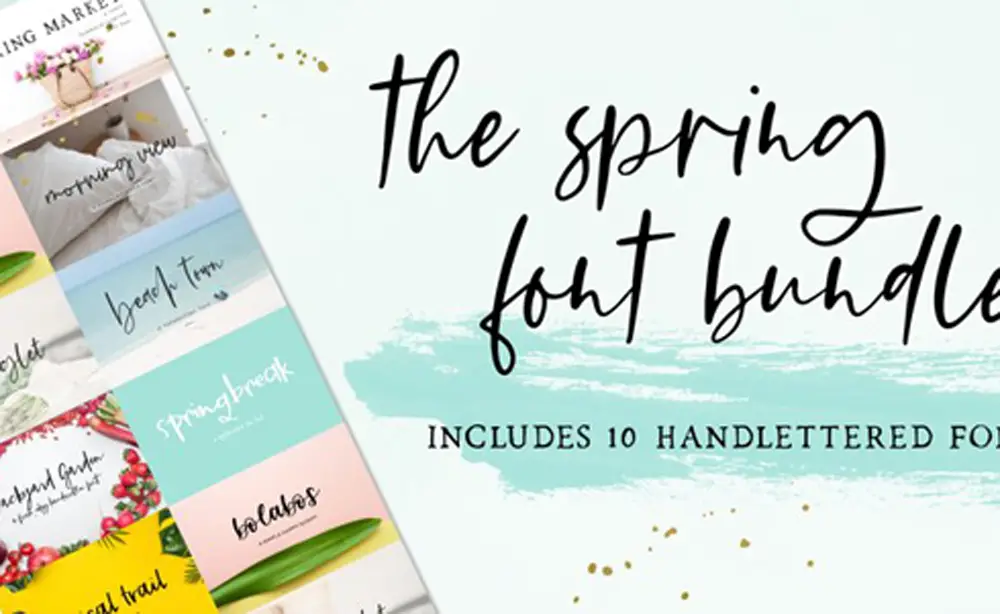
The Spring Font Bundle – 10 Handlettered Fonts
Introducing The Spring Font Bundle, a delightful collection of 10 handlettered fonts that bring a fresh and vibrant touch to your design projects. Perfect for adding a personal and artistic flair, these fonts are ideal for branding, logos, web design, print materials, and user interfaces.
• 10 unique handlettered font styles
• Variety of weights to suit different design needs
• Includes both uppercase and lowercase letters
• Designed for easy readability
• Great for creating eye-catching logos and branding materials
• Use in invitations, greeting cards, and other print designs
• Perfect for social media graphics and website headers